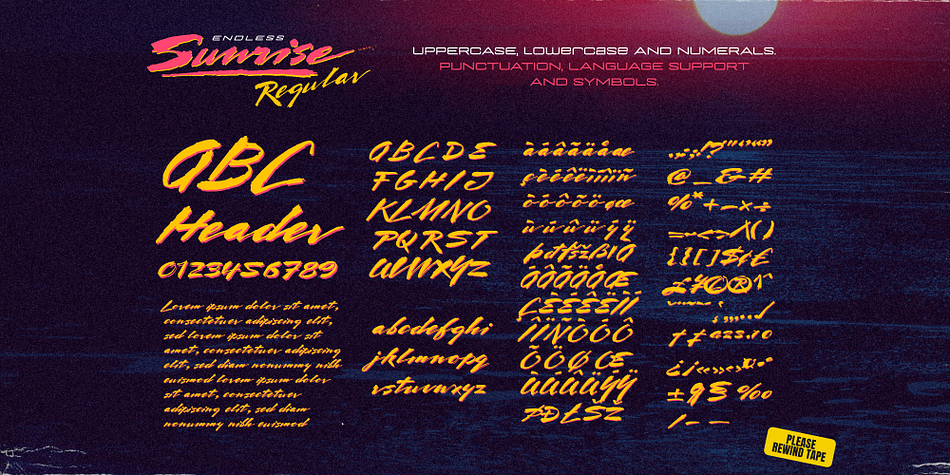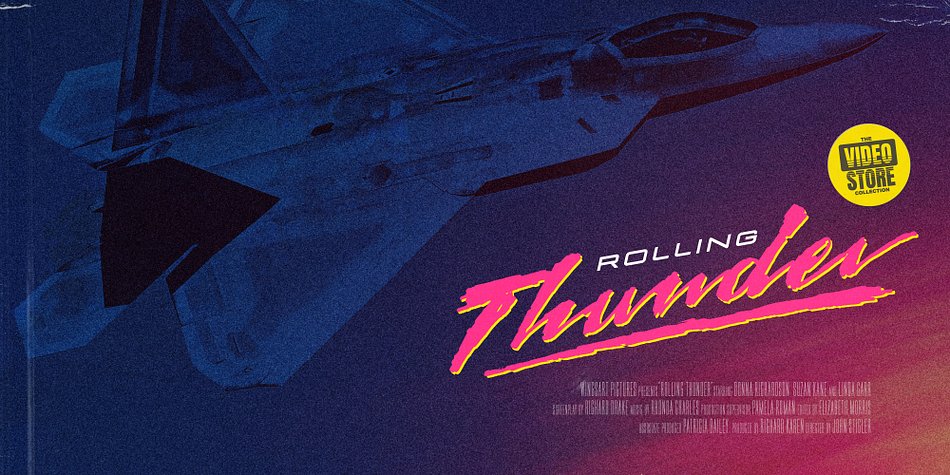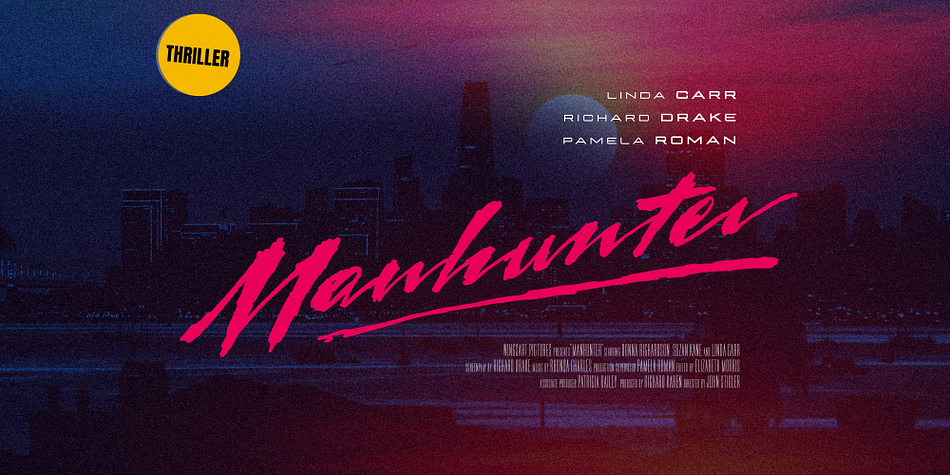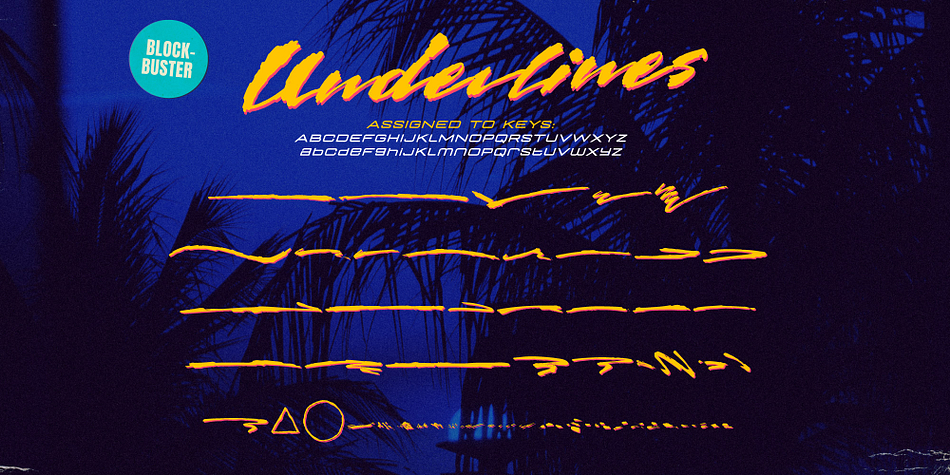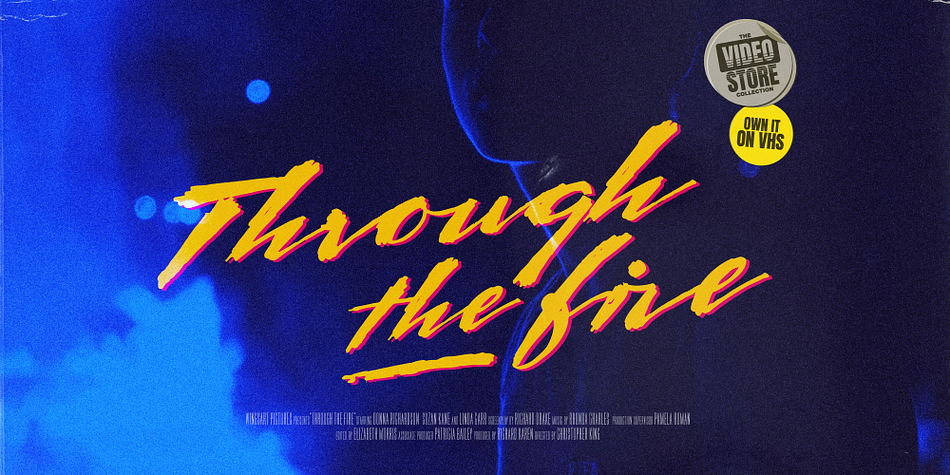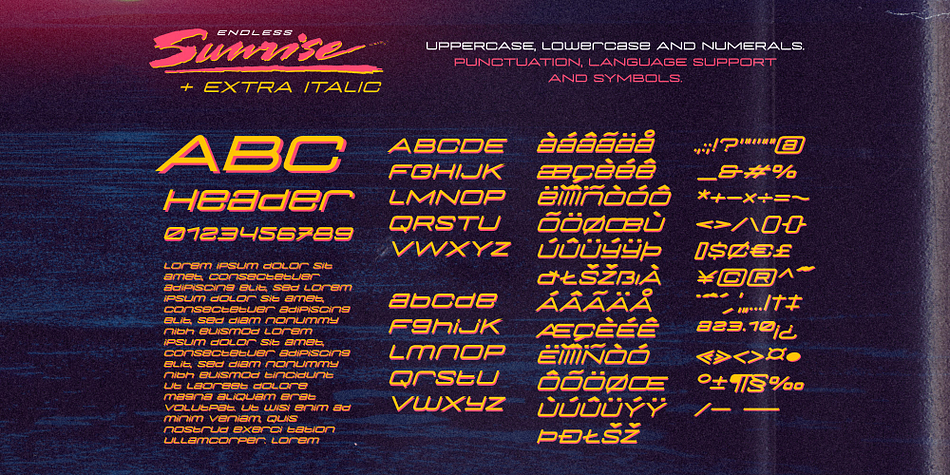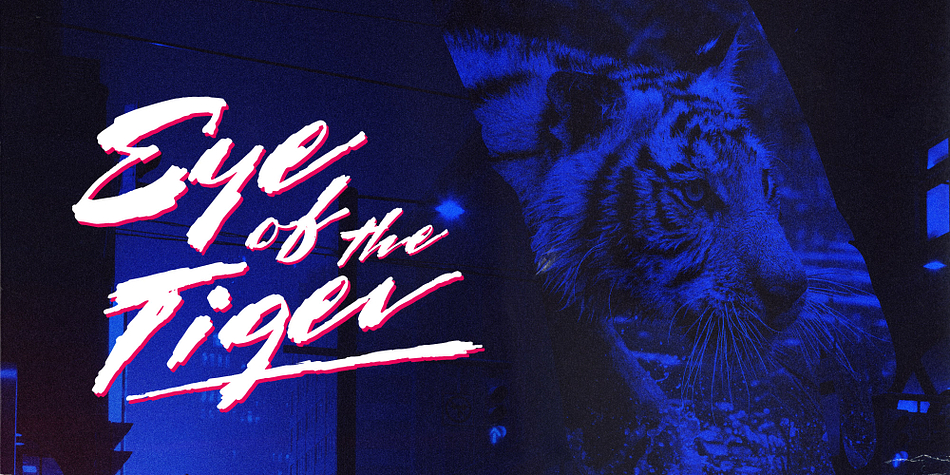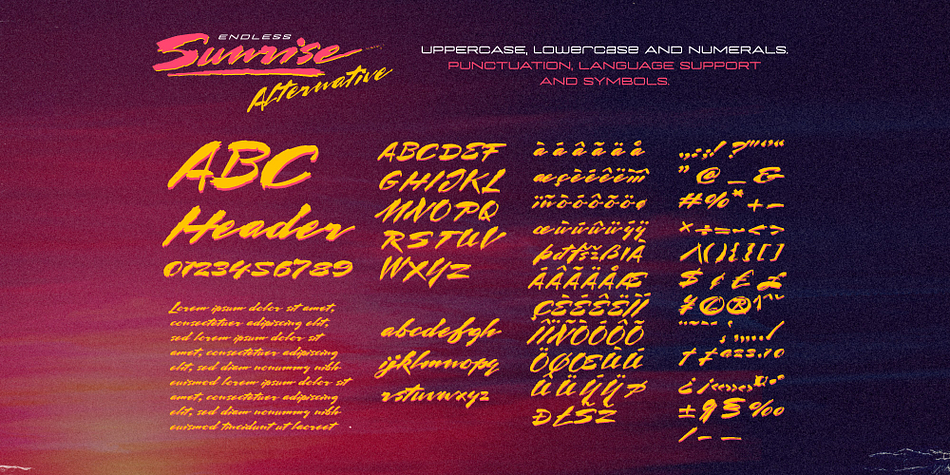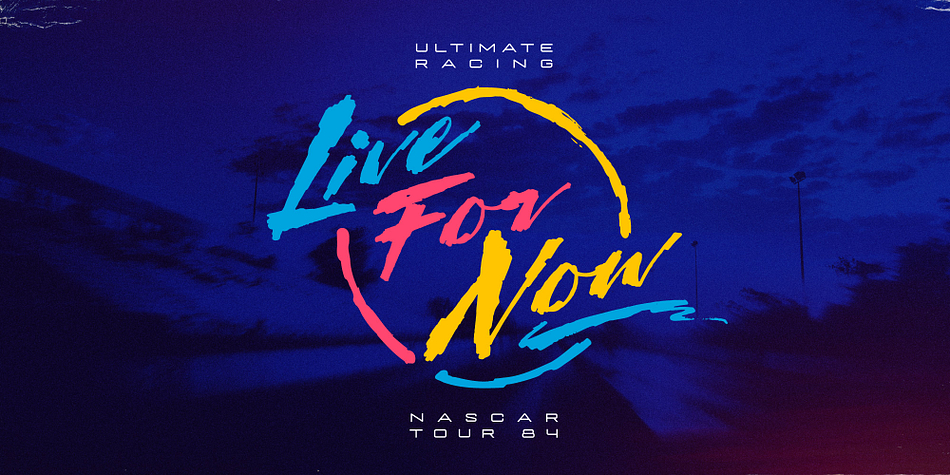
Endless Sunrise
Endless Sunrise is a brush display and dingbat font family. This typeface has five styles and was published by Wingsart Studio.
A hand-made retro script font duo inspired by 80s action movies!
This hand-made, retro-styled script font was born from a childhood watching countless 80s action movies. Stories of inspirational heroism and competition, all set against impossibly beautiful summer sunsets. And no self-respecting 80s movie would be without the coolest title design, setting the stage with a seemingly spontaneous glide of the designer’s brush.
Endless Sunrise aims to capture this spirit through its loose, hand-drawn design and complimentary sans-serif. It comes with a complete set of alternatives and underlines for true customisation, meaning you’ll never have to repeat an E or an I; the telltale signs that give away other script fonts. It also features uppercase and lowercase characters, along with numerals, punctuation, and language support.
An awesome font that will work equally well across film, sports, music, merch, and more!
Endless Sunrise Font Duo
- Regular
- Alternative
- Underlines*
- Extra
- Extra Italic
*Underlines are assigned to keys: abcdefghijklmnopqrstuvwxyz ABCDEFGHIJKLMNOPQRSTUVWXYZ